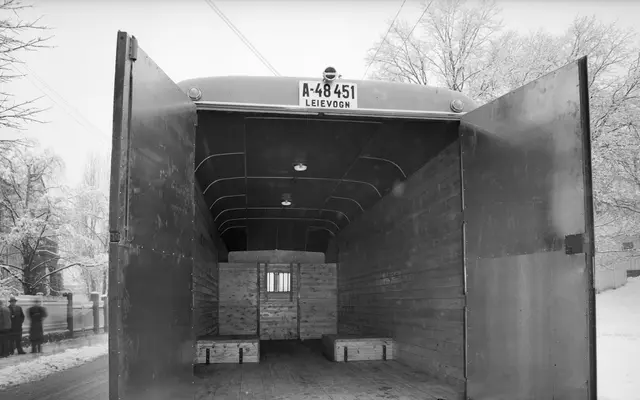
Store Norske Stempel
Store Norske Skriftkompani · Arve Båtevik
A revival of the bold number plate lettering used on Norwegian industrial vehicles from 1929, expanded into a full Latin display typeface by Arve Båtevik.
Based on the wider, bolder variant of Vertikal Jernskrift, the standard typeface mandated for Norwegian car number plates from 1929, this face was originally produced by two Oslo stamping workshops and used only the letters needed for vehicle classification terms. Båtevik has extended it into a complete alphabet with broad multilingual Latin support, covering languages from Afrikaans to Welsh and including Sami scripts. Developed as part of the Skrift i Oslo project, which works to revive Oslo's visual dialect through traditional sign painting, it suits branding, posters and editorial work that calls for something with genuine historical weight.
Derived from the bold, wide variant of Norway's 1929 official number plate lettering standard (Vertikal Jernskrift), the typeface carries a distinctly utilitarian and industrial character suited to display and poster use rather than continuous text.